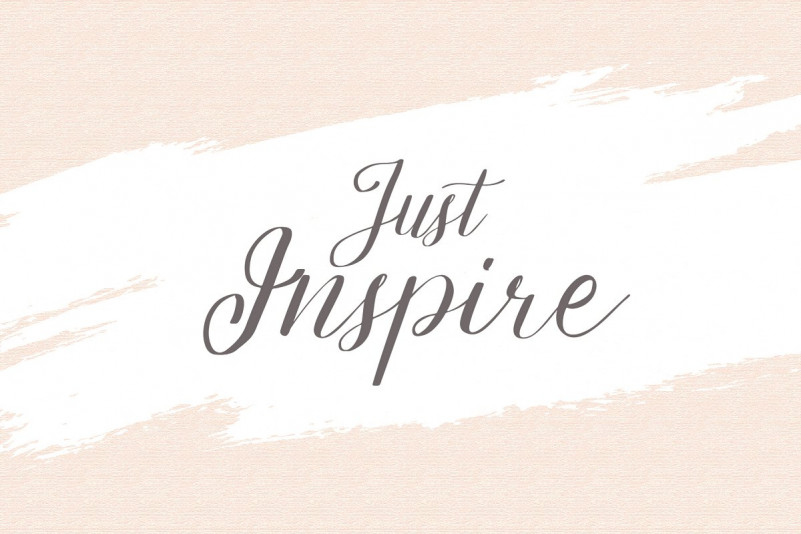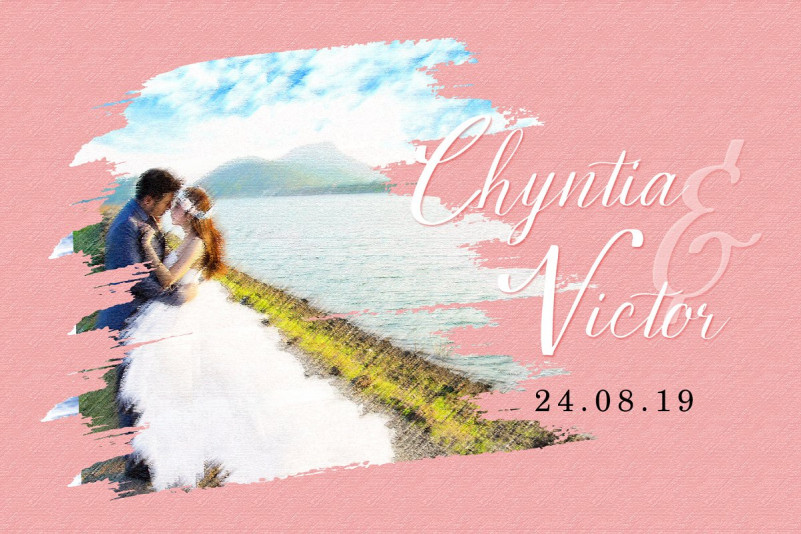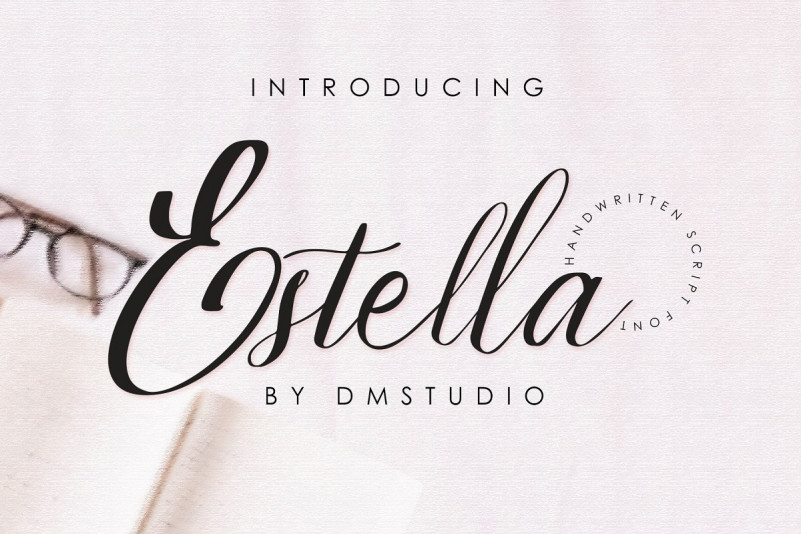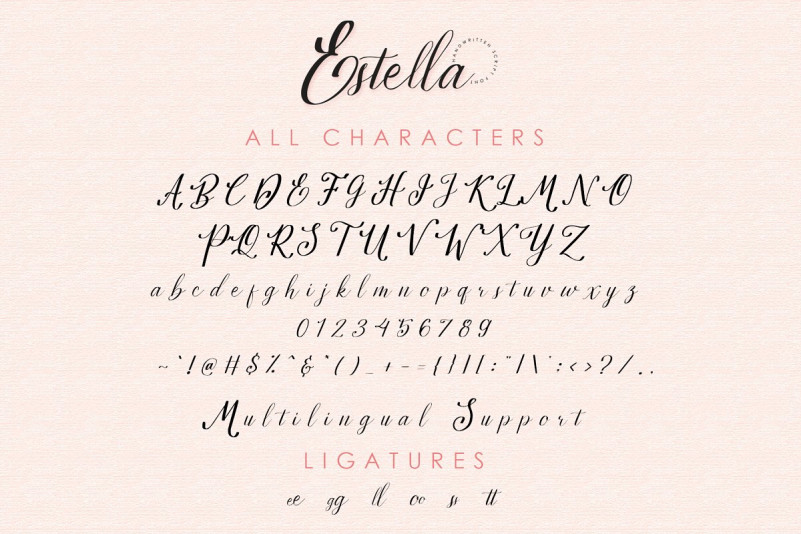
Estella Script Font
Introducing! New calligraphy script font. Estella Font! This font is made especially for those of you who need a touch of elegance to design your next project with perfect and amazing results. Estella is a typeface script with a personality. It was designed as well as possible to enhance the beauty of your design. You can use it as a logo, badge, packaging, title, poster, t-shirt / clothing, greeting cards, and wedding invitations.